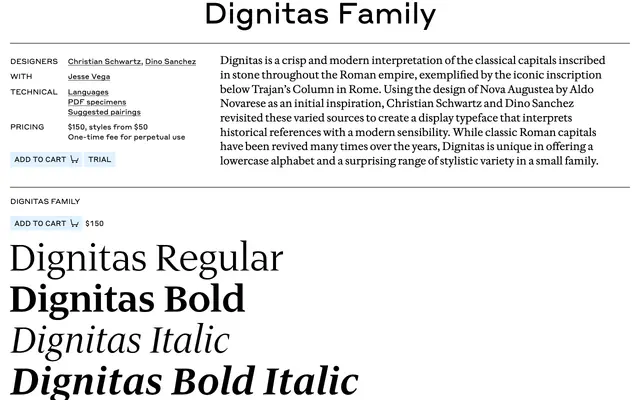
Dignitas Family
Commercial Type · Christian Schwartz, Dino Sanchez
A crisp modern take on Roman inscriptional capitals by Schwartz and Sanchez, drawing on Trajan's Column and Aldo Novarese's Nova Augustea, with a rare lowercase.
A display serif by Christian Schwartz and Dino Sanchez, with Jesse Vega, interpreting the classical capitals inscribed in stone across the Roman empire, exemplified by the inscription below Trajan's Column. Using Aldo Novarese's Nova Augustea as initial inspiration, the designers revisited varied sources to produce a modern reading of the genre. Unusually for a Roman capital revival, Dignitas includes a lowercase alphabet and a surprising range of stylistic variety in a small family. Suits heritage, institutional, luxury and editorial work where a classical capital voice is wanted with contemporary detail.
Commercial Type describe Dignitas as a crisp and modern interpretation of classical Roman capitals inscribed in stone, with Trajan's Column as exemplar and Aldo Novarese's Nova Augustea as initial reference. Adds a lowercase and stylistic alternates uncommon for the genre.